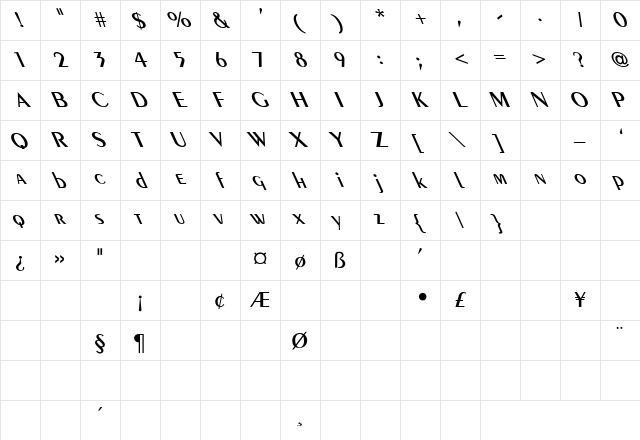
Complete Sailor Extreme Lefti Regular glyph index. Displaying only characters natively supported by Sailor Extreme Lefti Regular font.
Sailor Extreme Lefti is a composed and adaptable typeface that performs quietly and consistently across a wide range of design contexts.